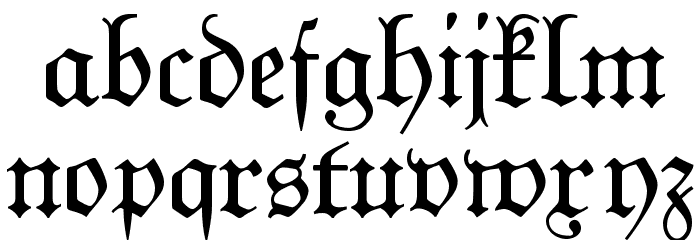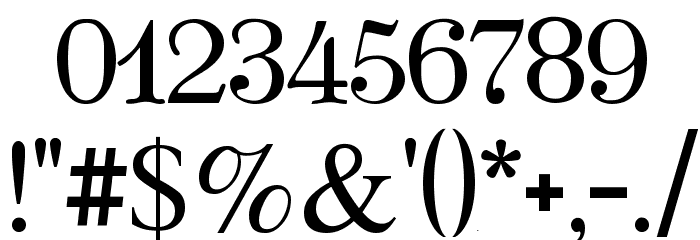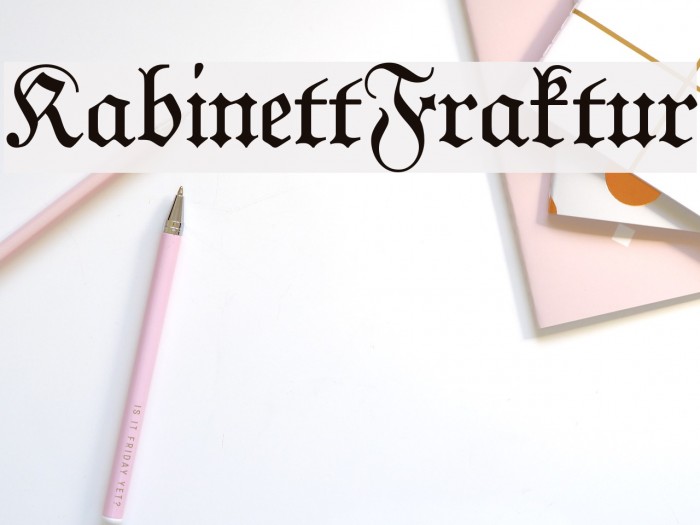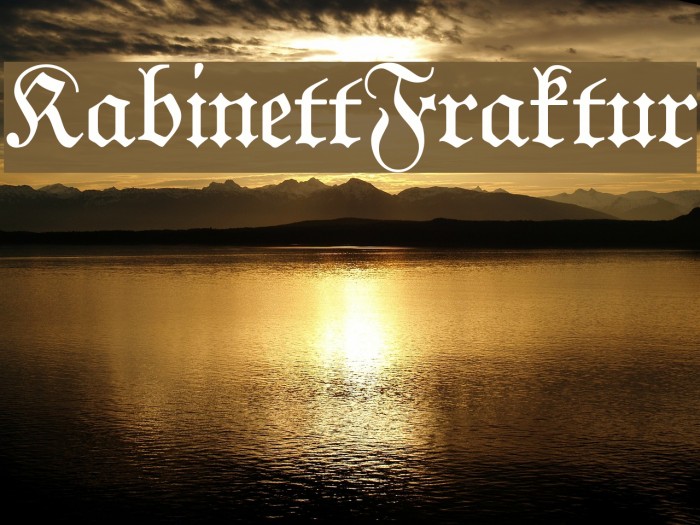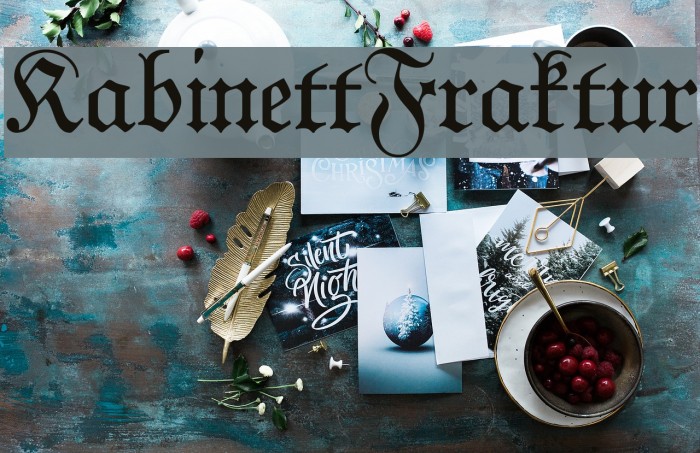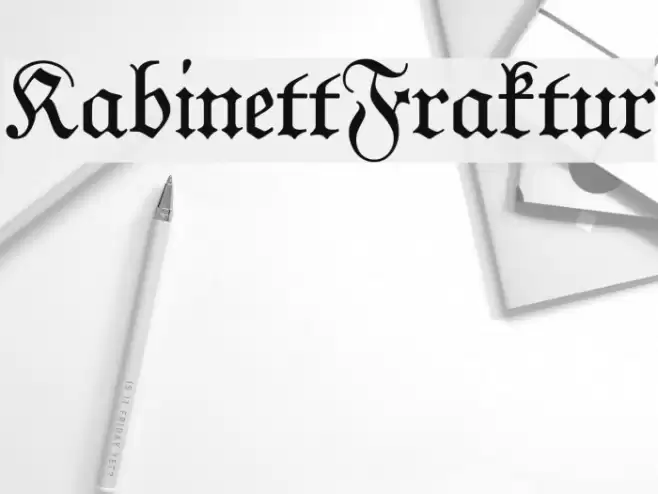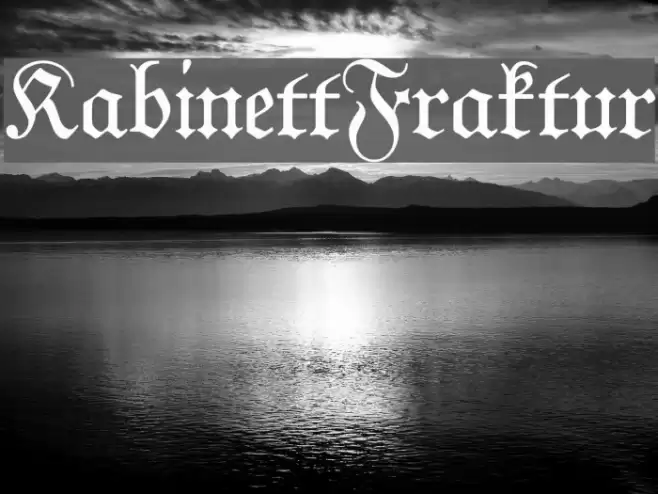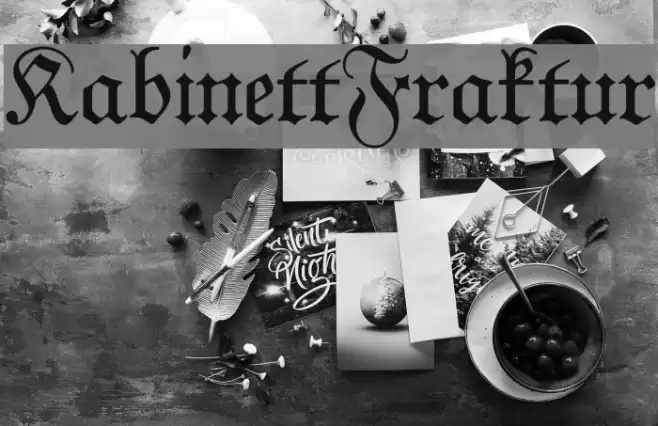
KabinettFraktur Font
This font exhibits a traditional and ornate style, reminiscent of historical script with its intricate and decorative elements. The uppercase letters are characterized by elaborate flourishes and sharp angles, giving them a regal and formal appearance. The lowercase letters maintain a consistent style, with a blend of curves and pointed edges that enhance the font's classic aesthetic. The numerals are bold and clear, maintaining the decorative theme while ensuring readability. Special characters are designed with the same attention to detail, integrating seamlessly into the overall style. This font's unique and artistic design makes it suitable for projects that require a touch of elegance and historical charm.
An ornate and decorative font with a classic, historical style.
- Proposed Projects: Ideal for wedding invitations, historical documents, certificates, and branding that requires a vintage or formal touch.
- Overall Style: Vintage
- Use Case: Logos, Headlines, Decorative text